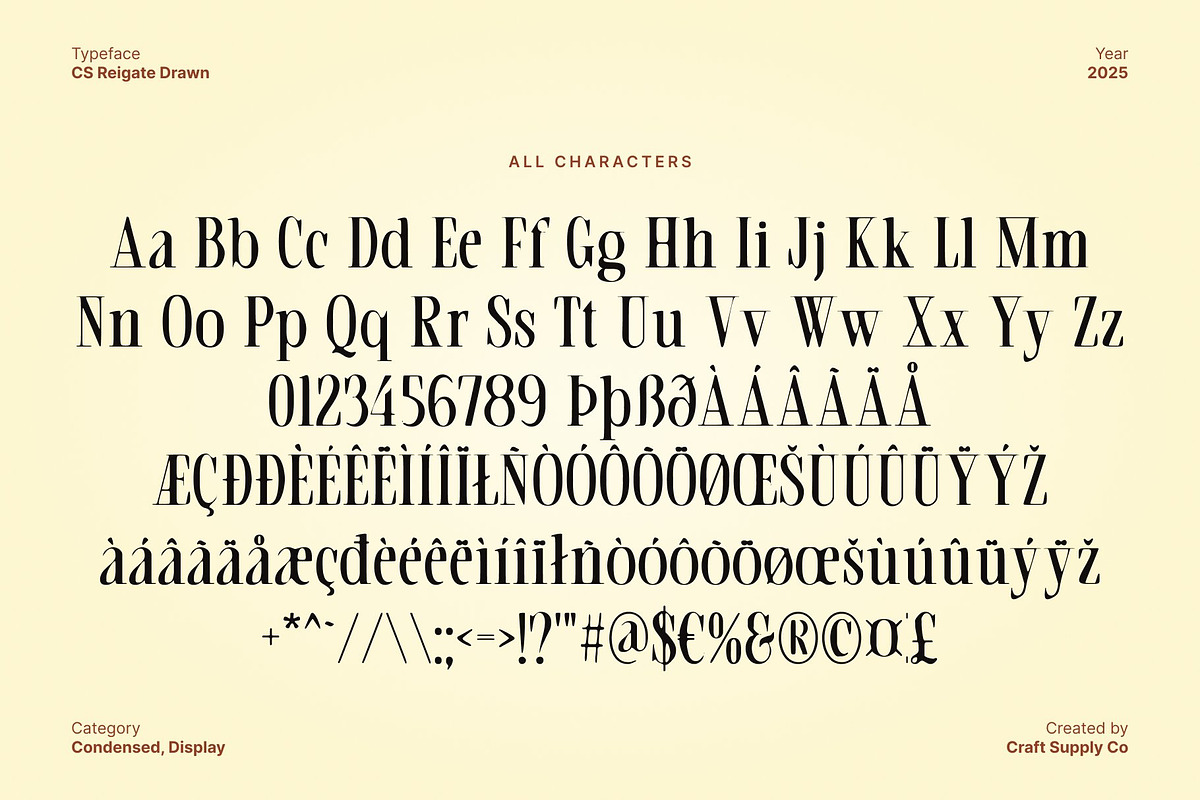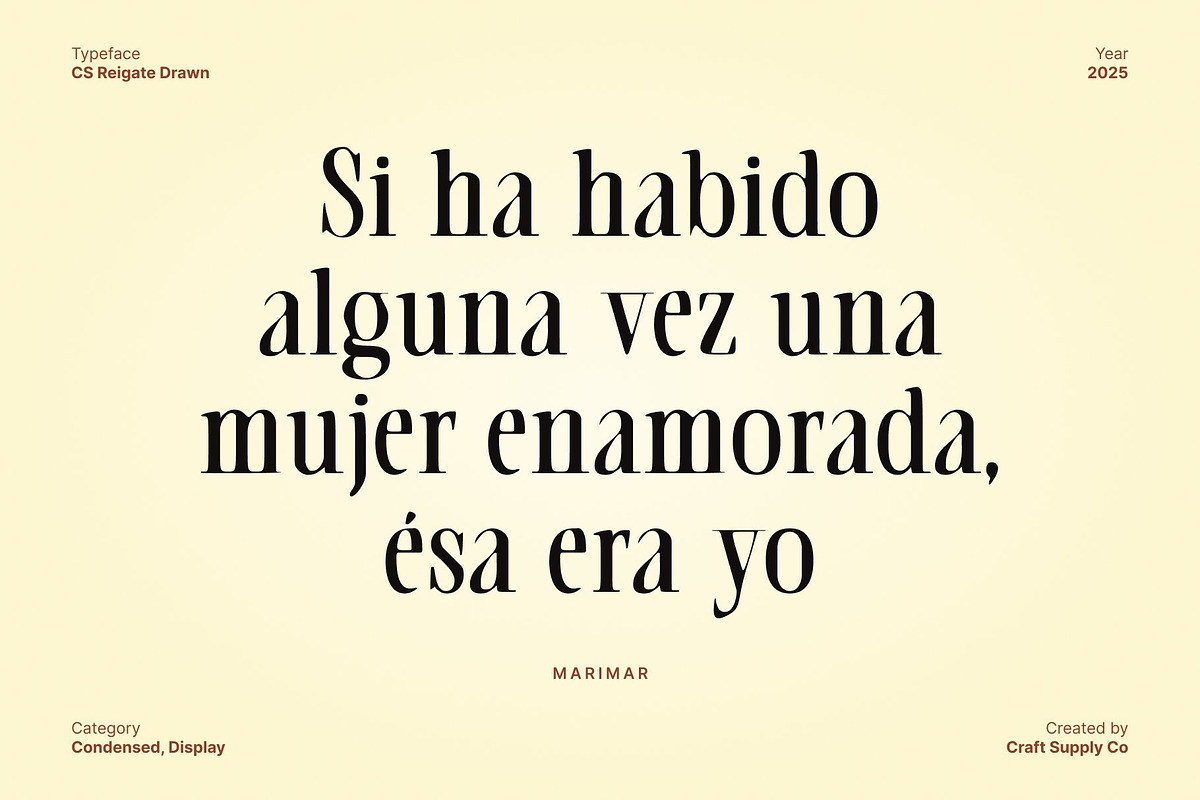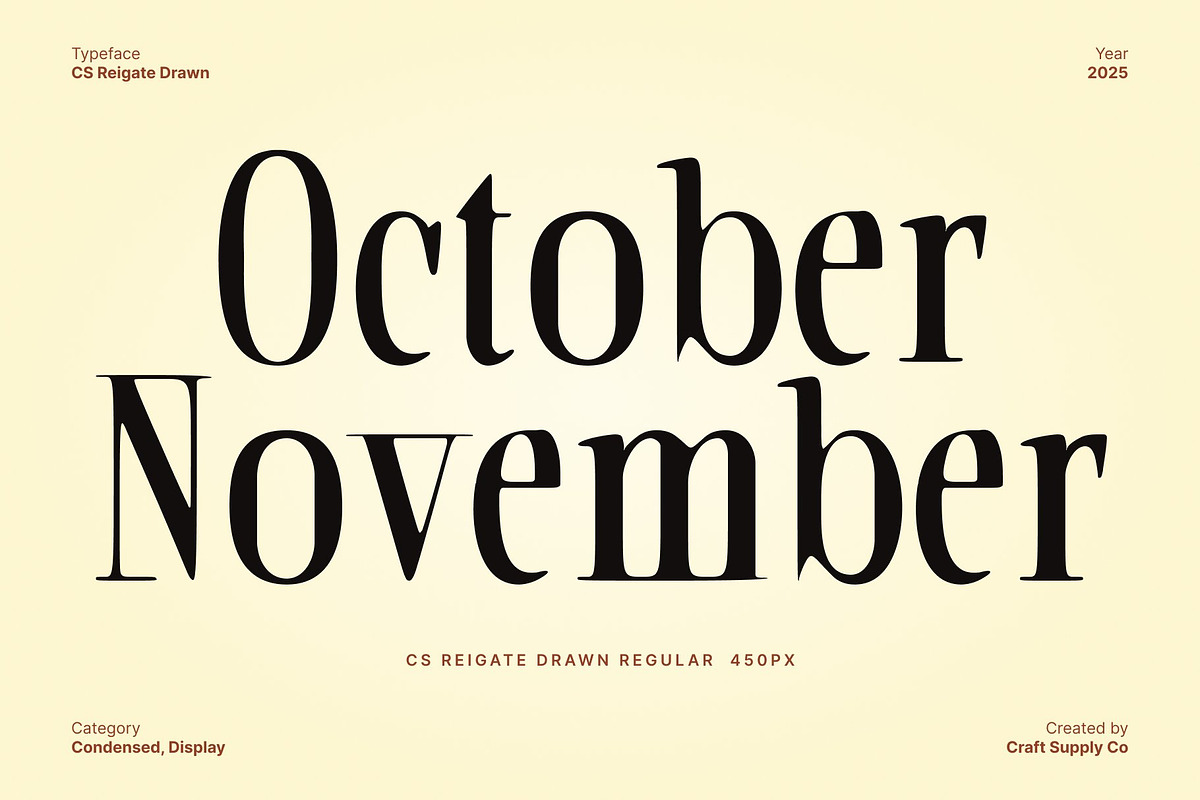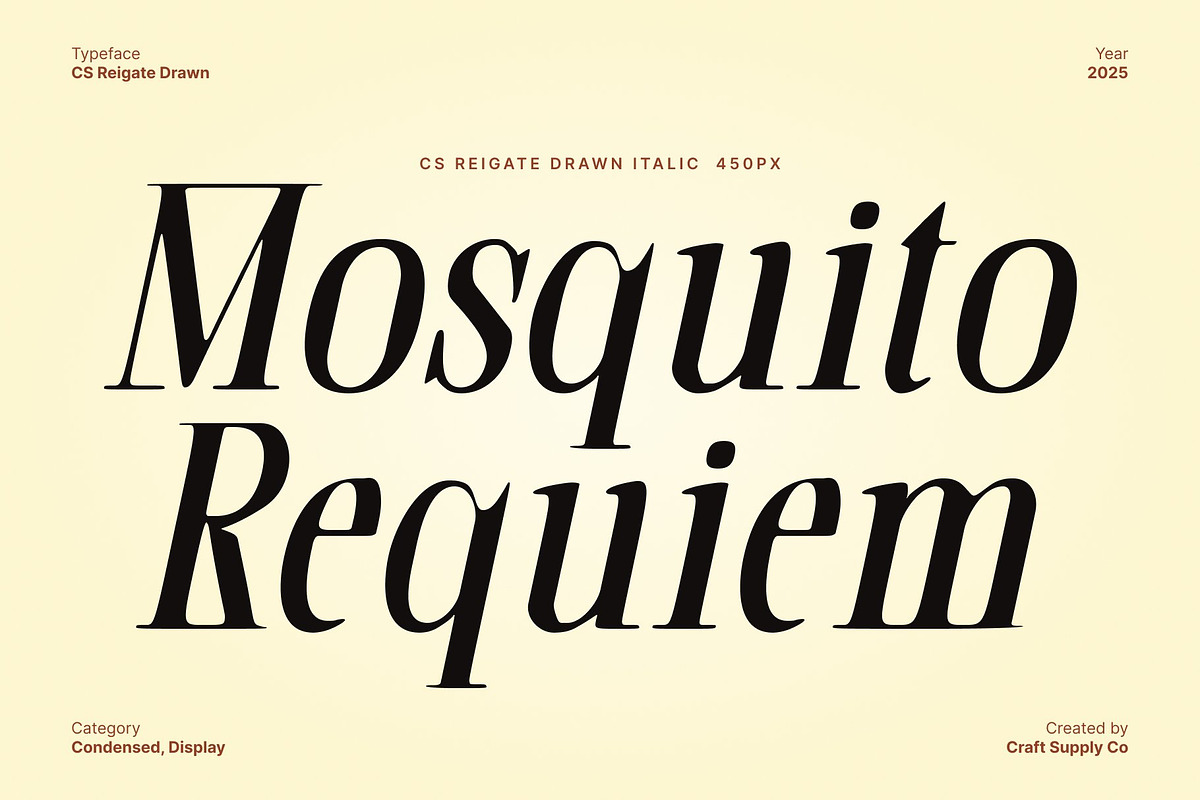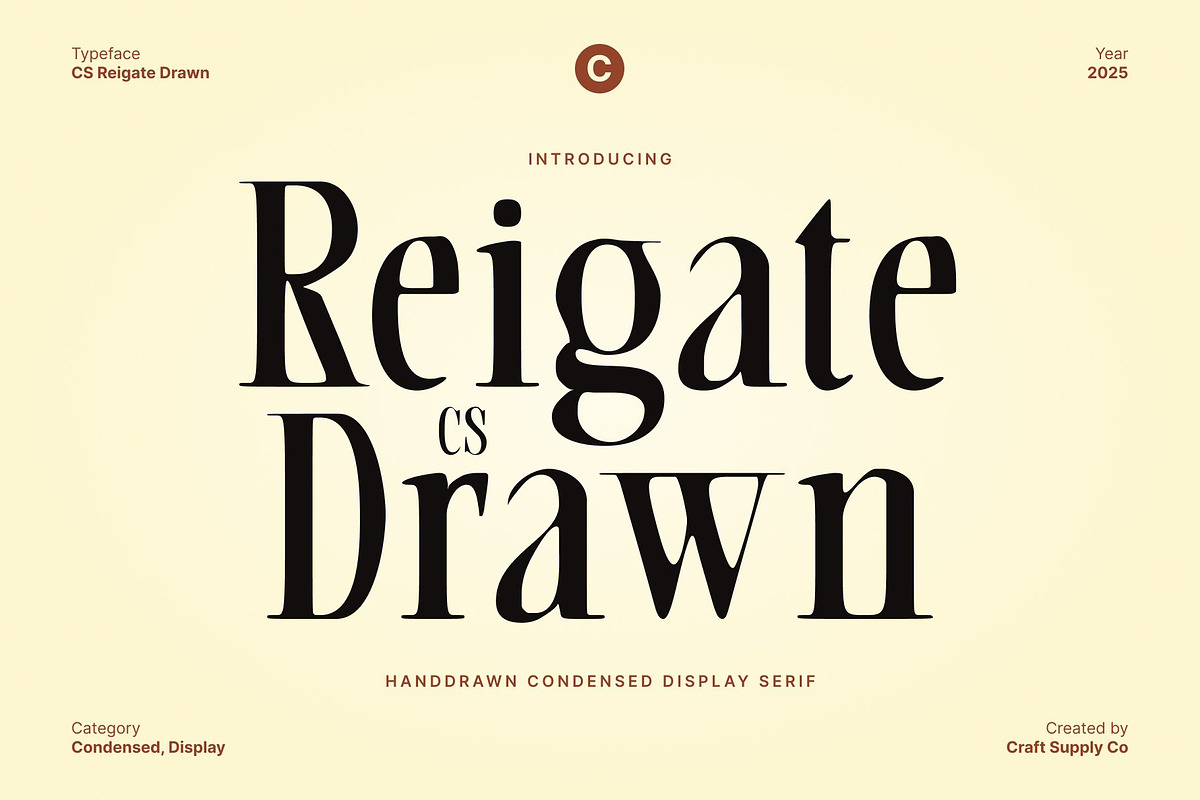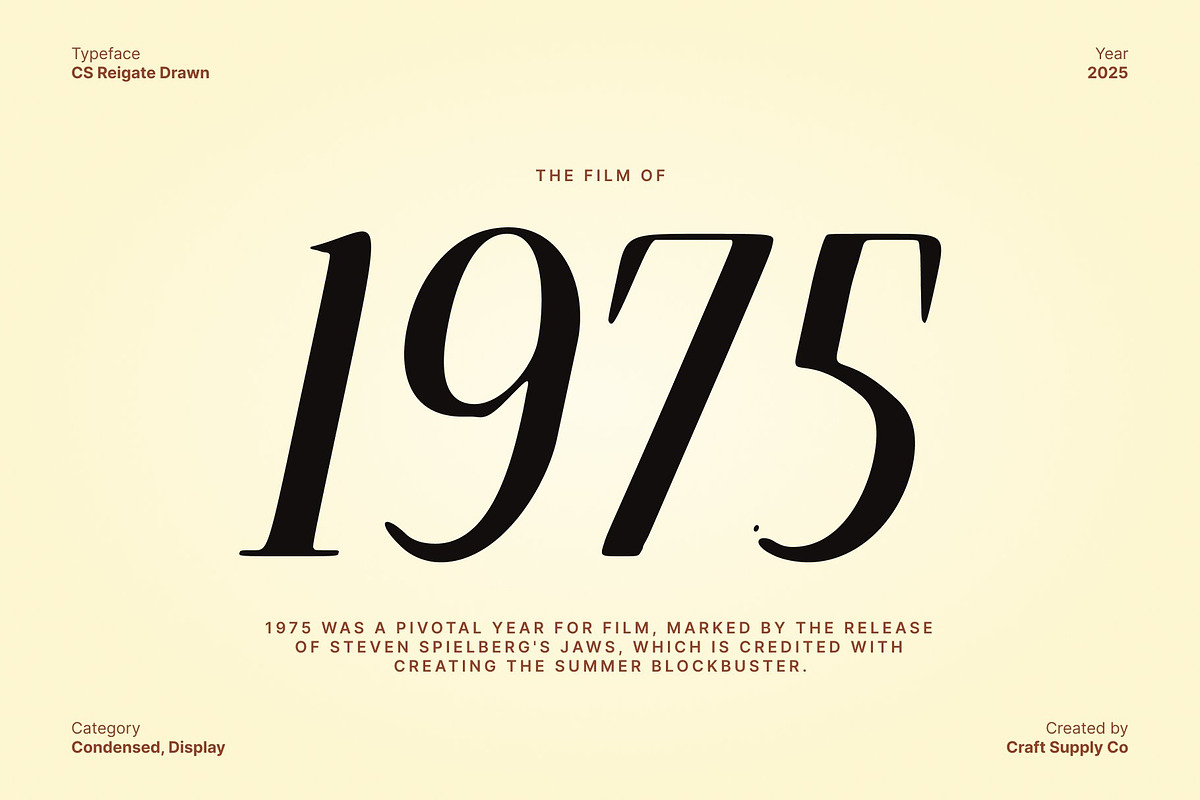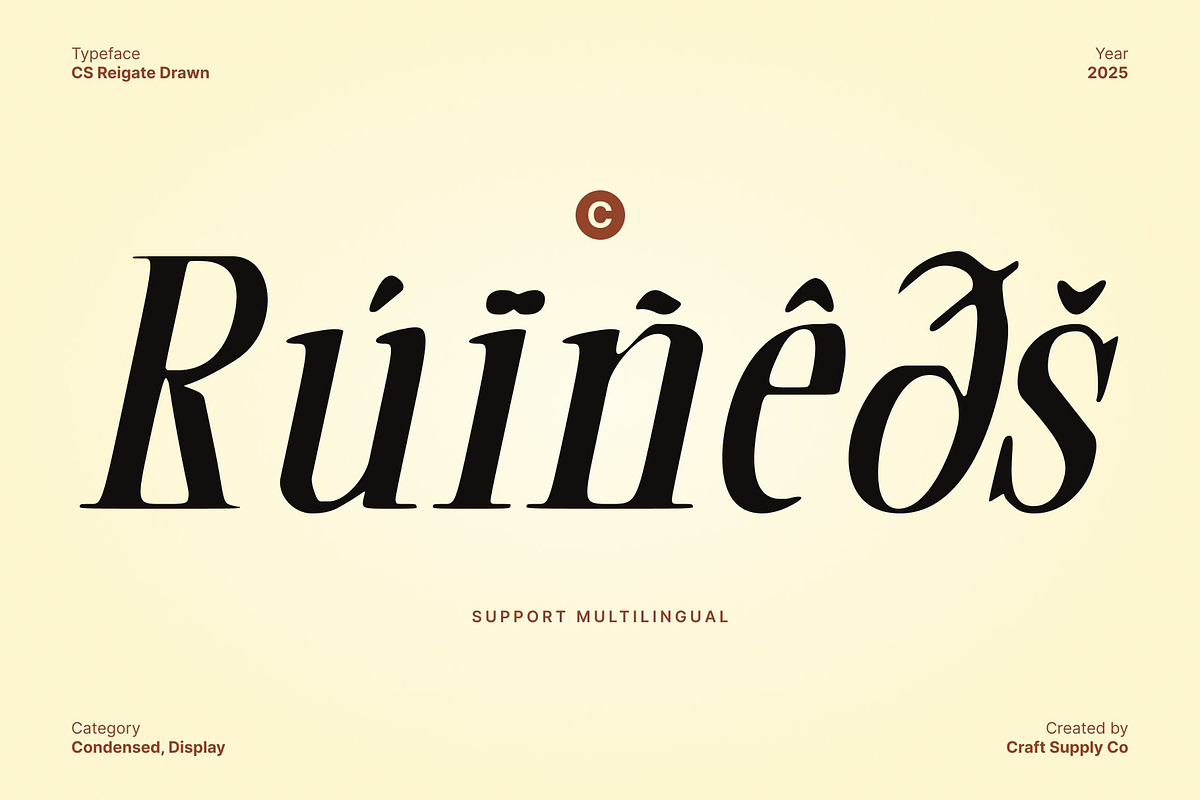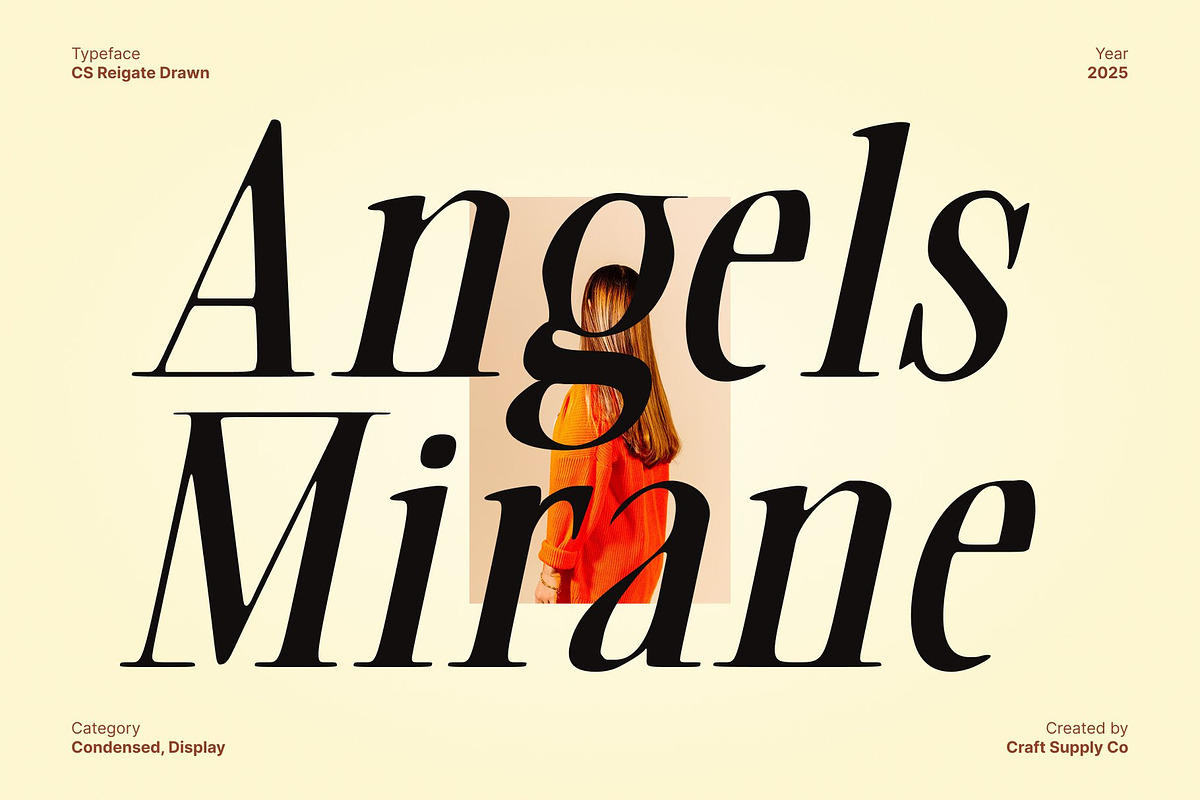
CS Reigate Drawn
CS Reigate Drawn – Classic Modern Serif with Artistic Hand-Drawn Texture
Modern Serif with Timeless Sophistication This font brings a refined modern serif structure with slender, elegant lines that create a clean and professional appearance. Its balanced proportions and contemporary serif shapes give it a timeless quality suitable for both traditional and modern design needs.
Expressive Drawn Texture for Added Character The drawn texture introduces a subtle handcrafted feel, adding warmth, personality, and artistic expressiveness to each letter. This detail elevates the font beyond a standard serif, giving your text a unique tactile charm.
Perfect Harmony of Professionalism and Artistry Combining modern precision with a hand-drawn touch, this font delivers a sophisticated yet creative presence. It’s ideal for branding, posters, editorial layouts, and any visual project that seeks a polished look infused with artistic nuance.
Ideal for Branding, Editorials, and Elegant Visuals Whether used for logotypes, magazine titles, product packaging, or promotional materials, this font ensures a distinctive and memorable impression. It blends classic serif structure with expressive artistry making every design feel intentional, stylish, and refined.